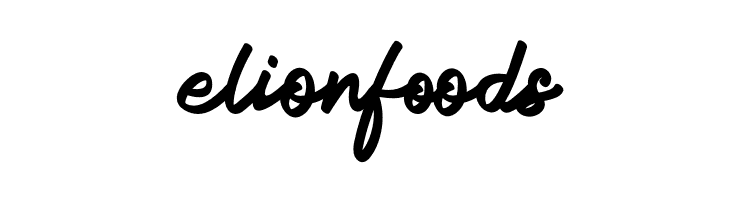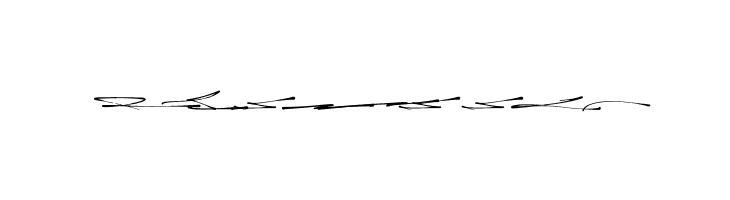
• Alligator Soap Bold
• Alligators
• AlligatorSky-Regular
A playful, handwritten font with bold, irregular strokes and artistic flair.
• Alligattory - Personal Use
A lively and playful script font with fluid, interconnected strokes.
• allim Personal Use Only
A bold, expressive script font with elegant, flowing cursive letters.
• Allin Priska Regular
Elegant handwritten script font.
• Allina
A bold, cursive script font with a dynamic and elegant style.
• Allinda Light
A lively, handwritten font with fluid strokes and a casual style.
• ALLined
• ALLinedAndDotted
• Allington Regular
A dynamic and expressive handwritten font with fluid strokes and organic flow.
• Allington Swash Regular
An elegant script font with intricate swashes and flourishes.
• Allioideae-Demo Dot
A modern, dotted font with a sleek and minimalist design.
• Allioideae-Demo Regular
A modern, minimalist font with thin, elongated strokes and a clean design.
• Allioideae-Demo Stencil
A modern stencil font with clean lines and geometric shapes.
• Allioideae-Demo StencilDot
A modern stencil font with dotted embellishments and geometric shapes.
• allisa